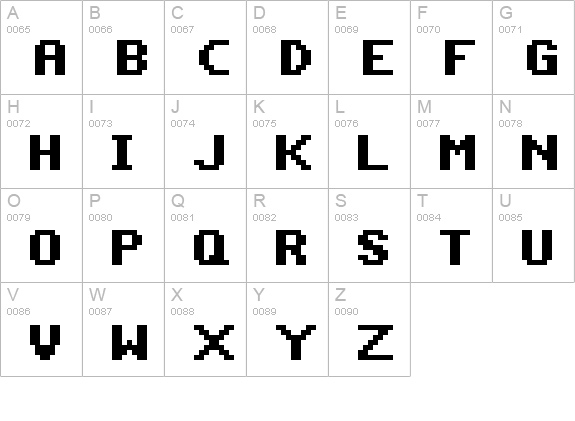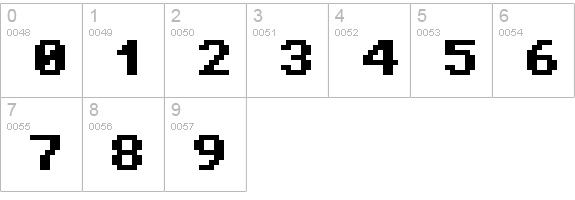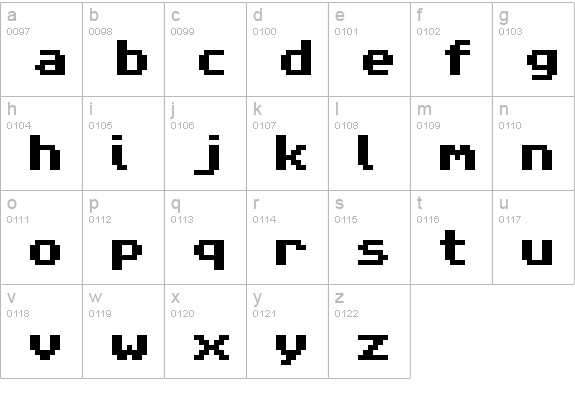
Amiga Forever Pro Font Details
Amiga Forever Pro font is a versatile and stylish typeface that is perfect for a wide range of design projects. Its clean lines and modern aesthetic make it ideal for both digital and print applications. This font exudes a sense of sophistication and professionalism, making it a great choice for branding, advertising, and more. The best part about Amiga Forever Pro font is that it is completely free to use. You can easily download this font at FontsMarket.com and start using it in your projects right away. Whether you're designing a website, creating a logo, or working on a print publication, Amiga Forever Pro font is sure to add a touch of elegance and polish to your work. Don't miss out on this fantastic free font – download it today and take your designs to the next level!